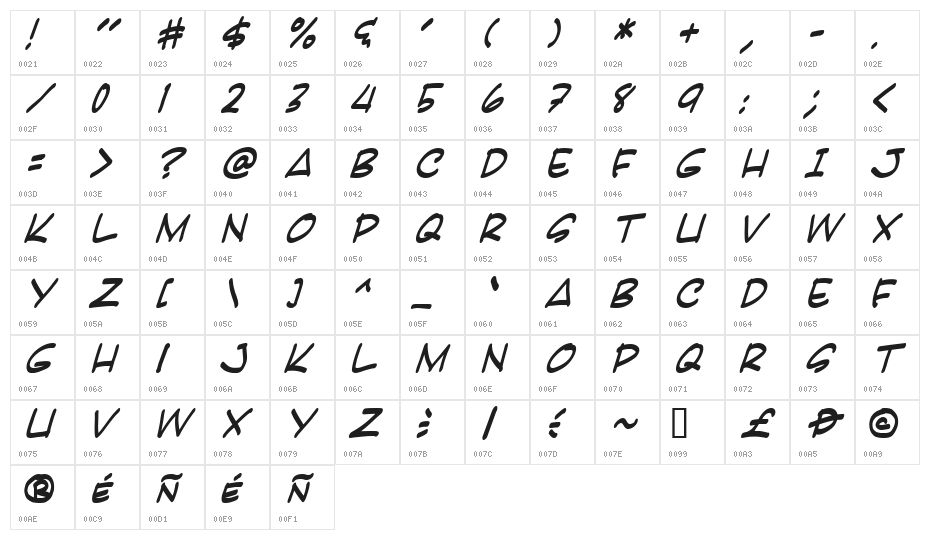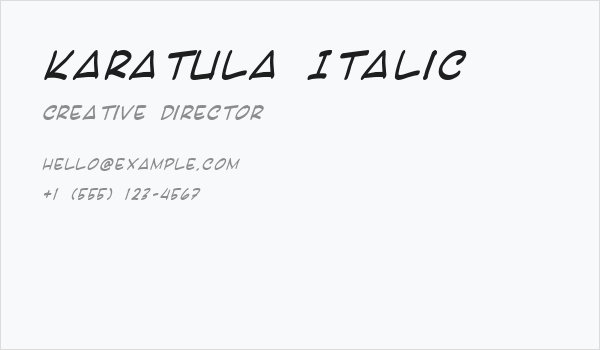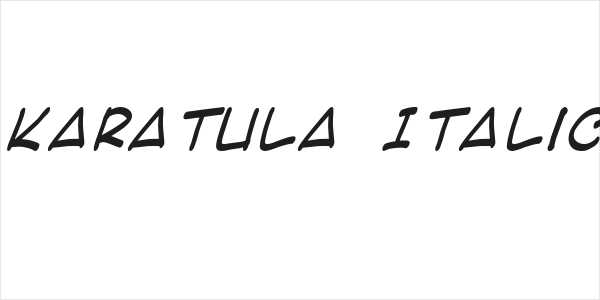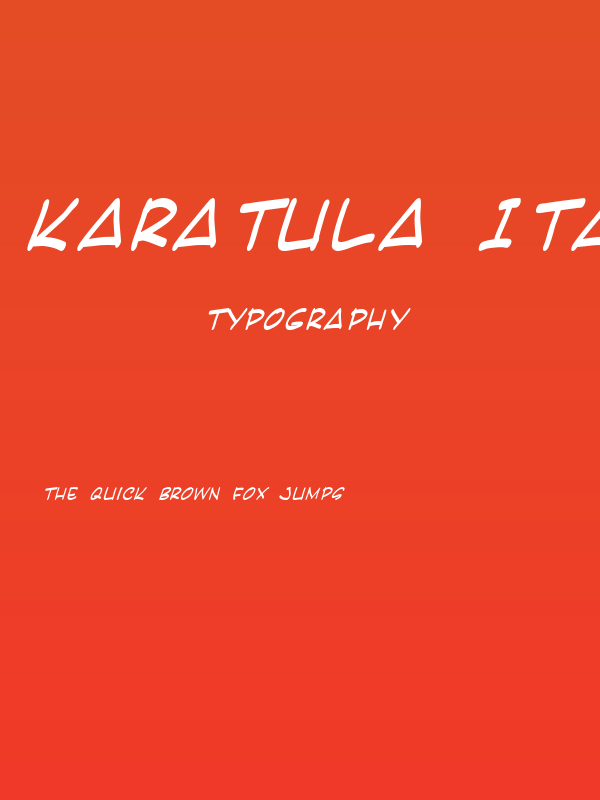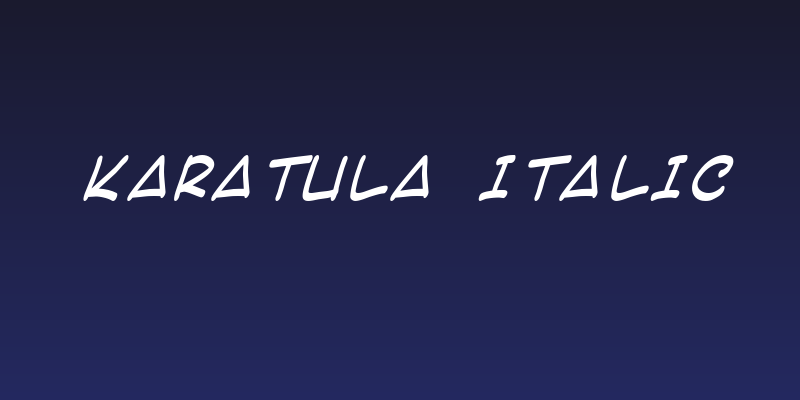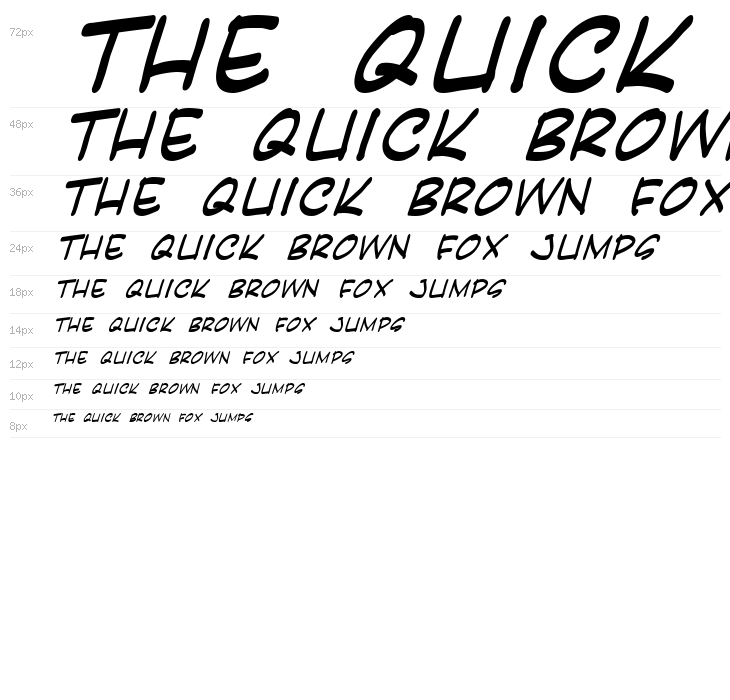
Karatula Italic Font
Karatula Italic Description
This font exhibits a dynamic and fluid style, characterized by its italicized, handwritten appearance. The letters are slightly slanted, giving a sense of motion and elegance. Each character is crafted with a consistent stroke width, maintaining a uniform look throughout. The uppercase and lowercase letters are well-balanced, with a playful yet sophisticated flair. The numerals and special characters complement the alphabet with the same energetic and cursive design, making it versatile for various applications.
| Proposed Projects | Ideal for creative projects such as invitations, greeting cards, branding, and logo design, where a personal and artistic touch is desired. |